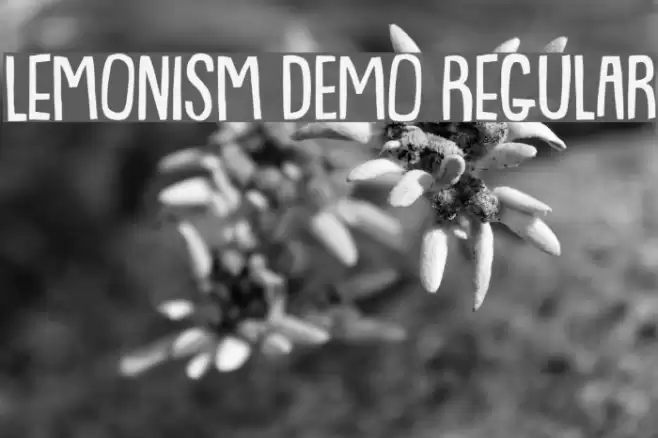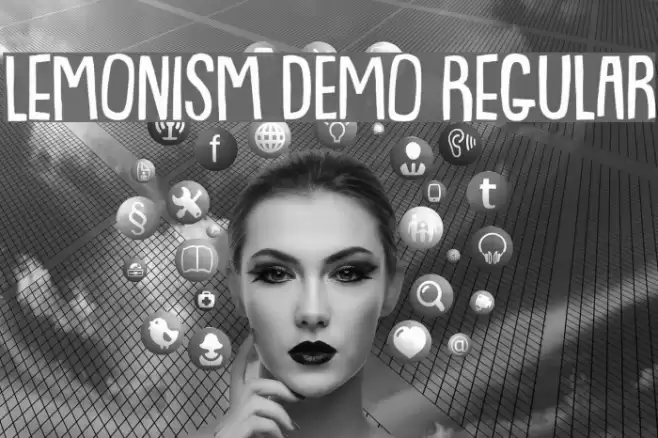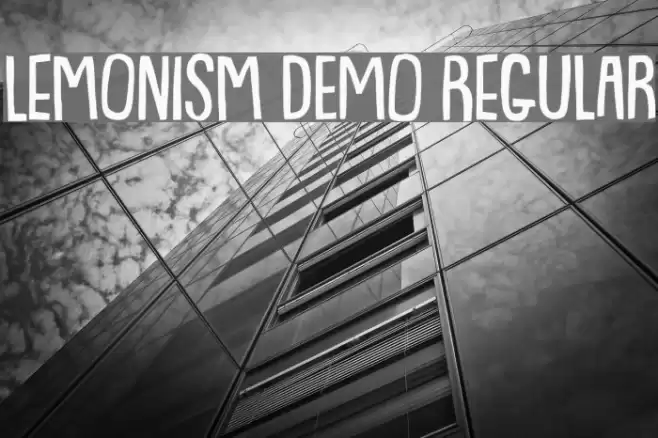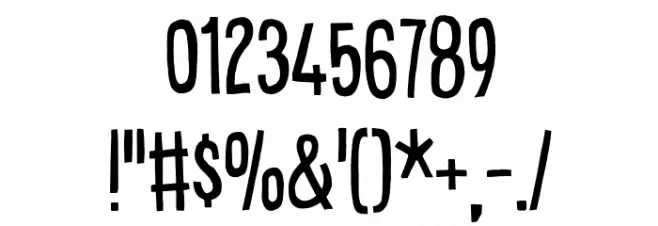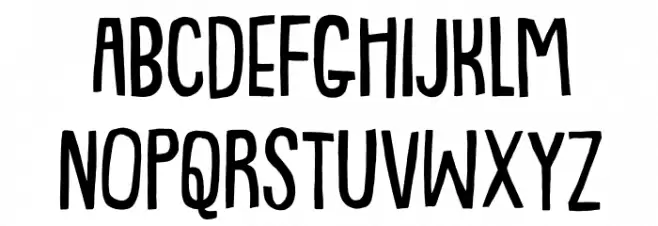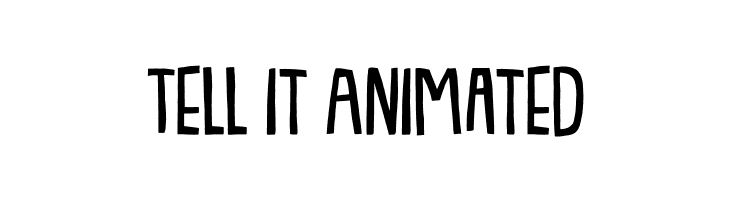
Lemonism DEMO Regular Font
Lemonism DEMO Regular Description
This font features a playful and quirky design with a hand-drawn aesthetic. The characters are slightly irregular, giving it a whimsical and informal feel. The uppercase letters are bold and prominent, while the lowercase letters maintain a consistent style with a touch of individuality. The numbers are clear and easy to read, matching the overall style of the alphabet. Special characters are included, maintaining the same playful design. This font is ideal for projects that require a fun and approachable look, such as children's books, casual branding, or creative posters.
A playful, hand-drawn font with a quirky and informal style.
- Proposed Projects: Children's books, casual branding, creative posters, greeting cards.
- Category: Handwritten
- Overall Style: Playful